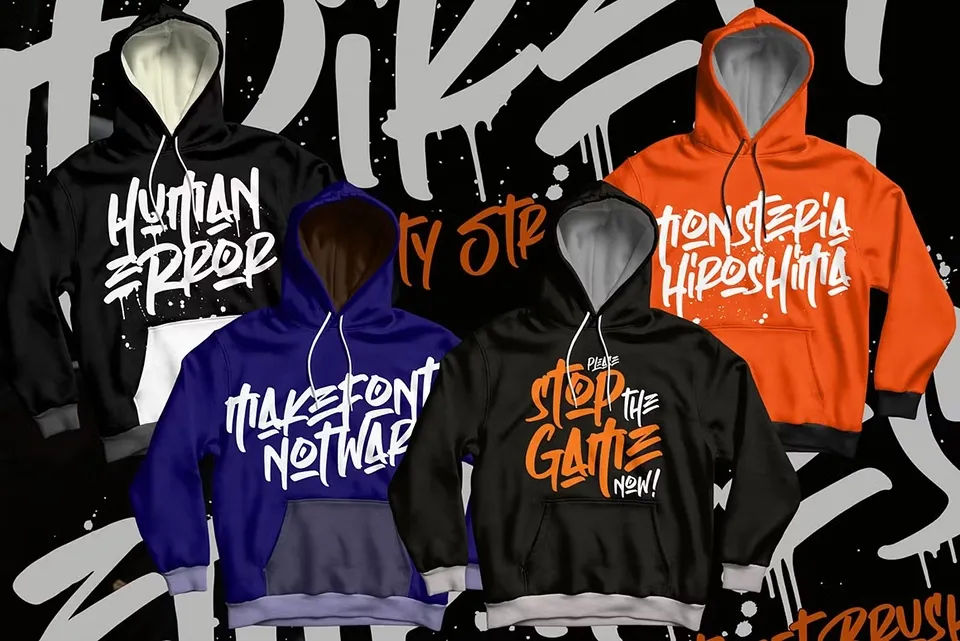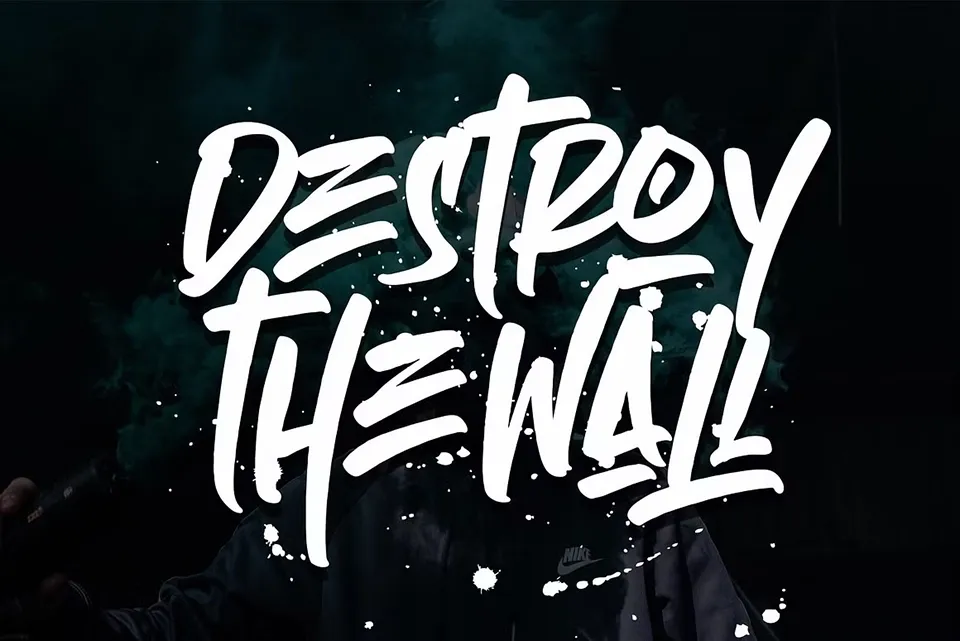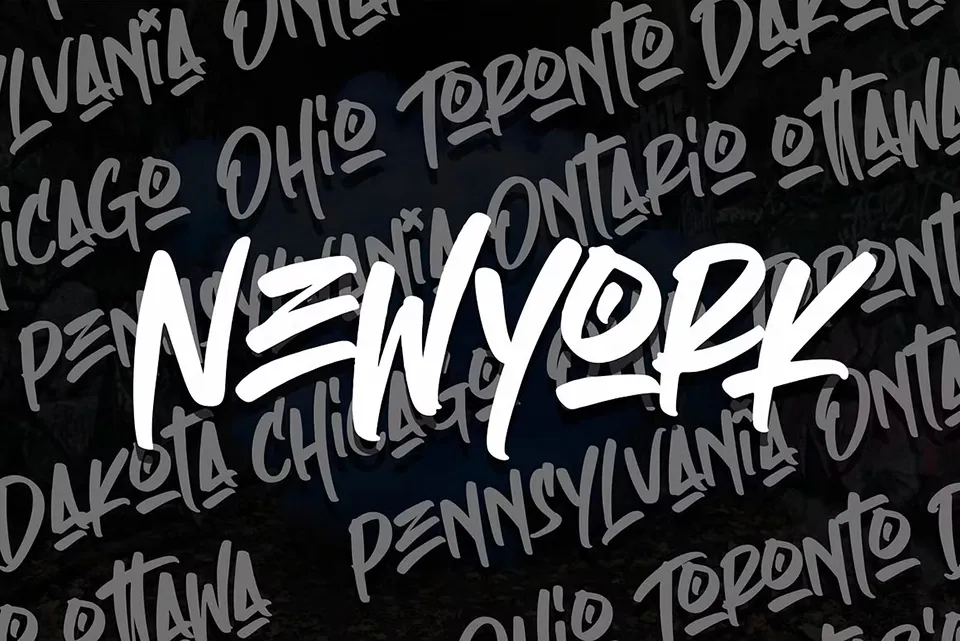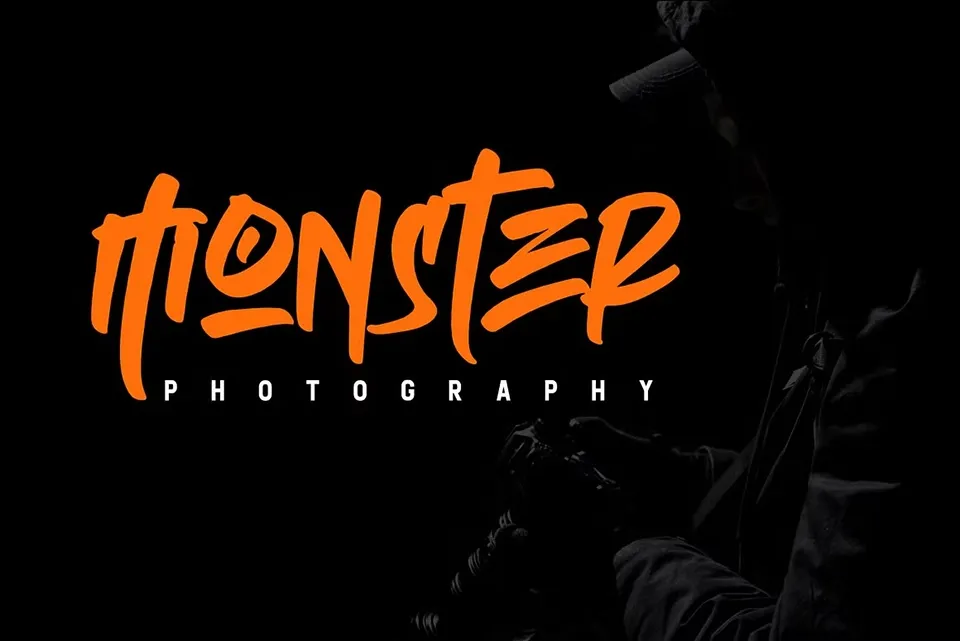
Empires Brush Font
Empires Brush Font is a supercharged, street-wise brush font bursting with energy. With quick strokes and sharp details, it’s perfect for logos, apparel, T-shirts, hoodies, quotes, product packaging, and any project that needs a typographic turbo-boost. Its graffiti-inspired style makes it an ideal choice for bold, creative designs.